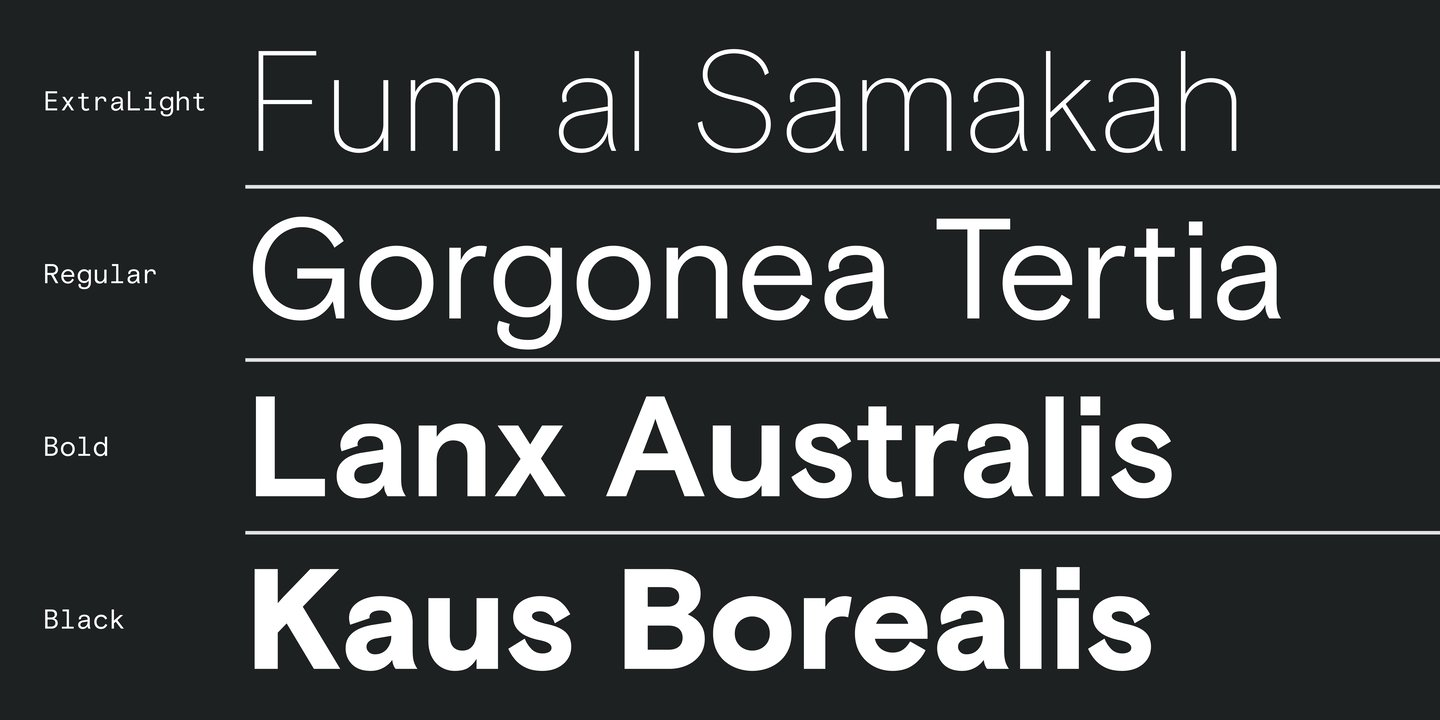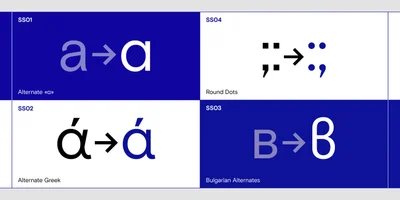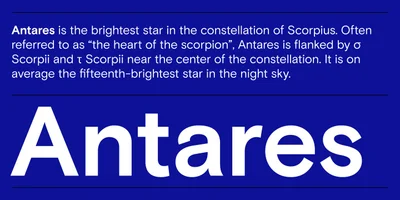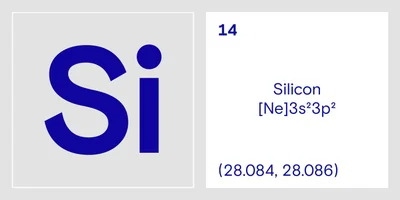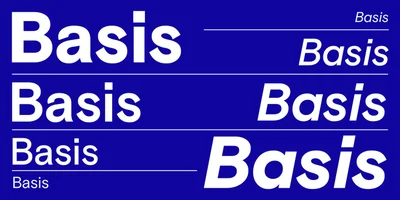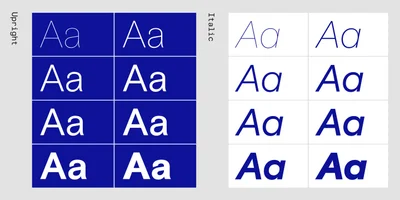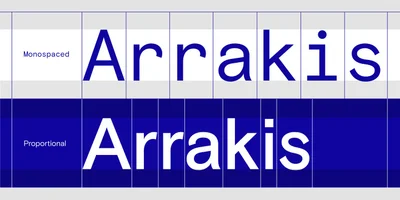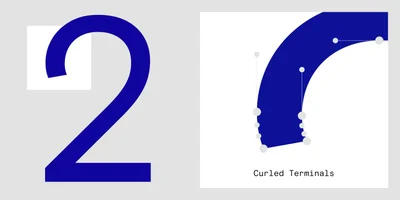
Inter vs Basis Grotesque
Inter provides Basis Grotesque's functional clarity with stronger digital optimization. At 82% similarity, both share disciplined neo-grotesque construction and restrained personality. Inter's variable font support, optical sizing, and broader language coverage make it the more practical choice for product interfaces, though it trades Basis Grotesque's editorial warmth for pure screen efficiency.
Where You'll See These Fonts
Basis Grotesque
- Kinfolk magazine
- Fashion lookbooks
- Cultural institutions
- Design studio identities
- Independent publishing
Recommended: Inter
- Shares Basis Grotesque's modern character
- Particularly suited for product UI and web applications and design system typography
- Variable font with continuous weight adjustment
- Supports 7 scripts including cyrillic and cyrillic-extended
- Delivers a modern, clean, professional aesthetic
Consider: Basis Grotesque
- Designed specifically for editorial and branding
- Used by Kinfolk magazine, Fashion lookbooks